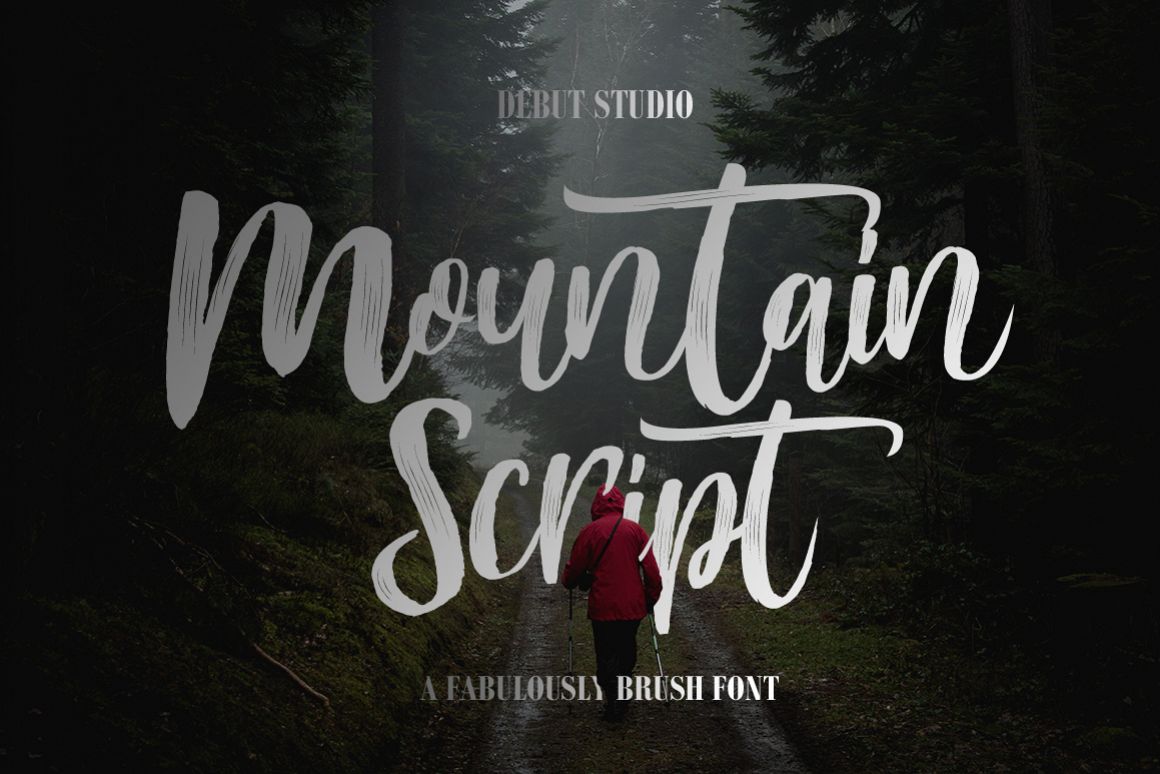
Mountain Script - Brush Fonts
Debut Studio presents the latest font Mountain Script - Brush Fonts
This font  is perfect for design purposes such as logo design, t-shirt, heading, magazine, newspaper, website, to design quotations, posters, business cards, and others.
- Standard ligatures and alternate stylistic
- Multilingual support
- spread your message globally AÀÁÂÃÄÅCÇDÐEÈÉÊËIÌÍÎÏNÑOØÒÓÔÕÖUÙÜÚÛWYÝŸ?ŸÆŒß